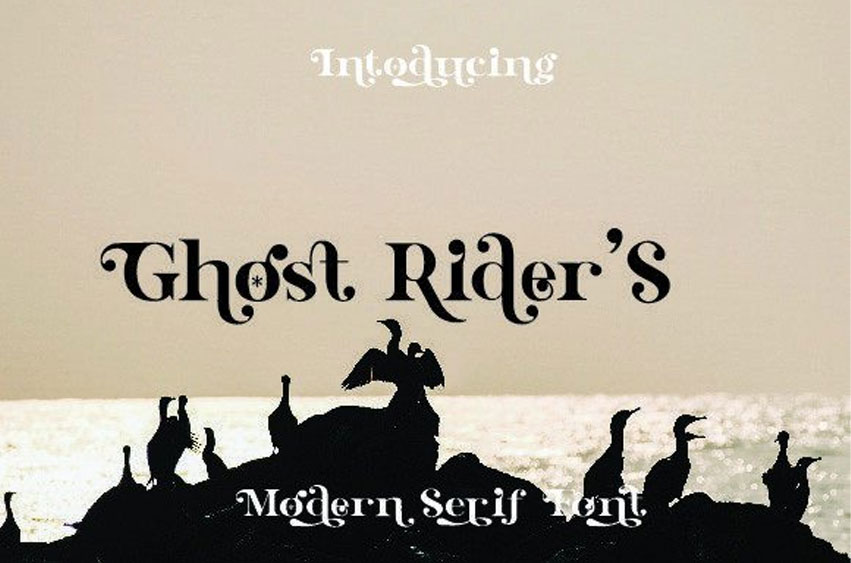
Ghost Rider's Font
Ghost Rider’s Font
Ghost Rider’s Font is a modern serif font made with many alternative patterns and ligatures, there are many choices of letters for you to be creative in making words or sentences so it looks elegant.